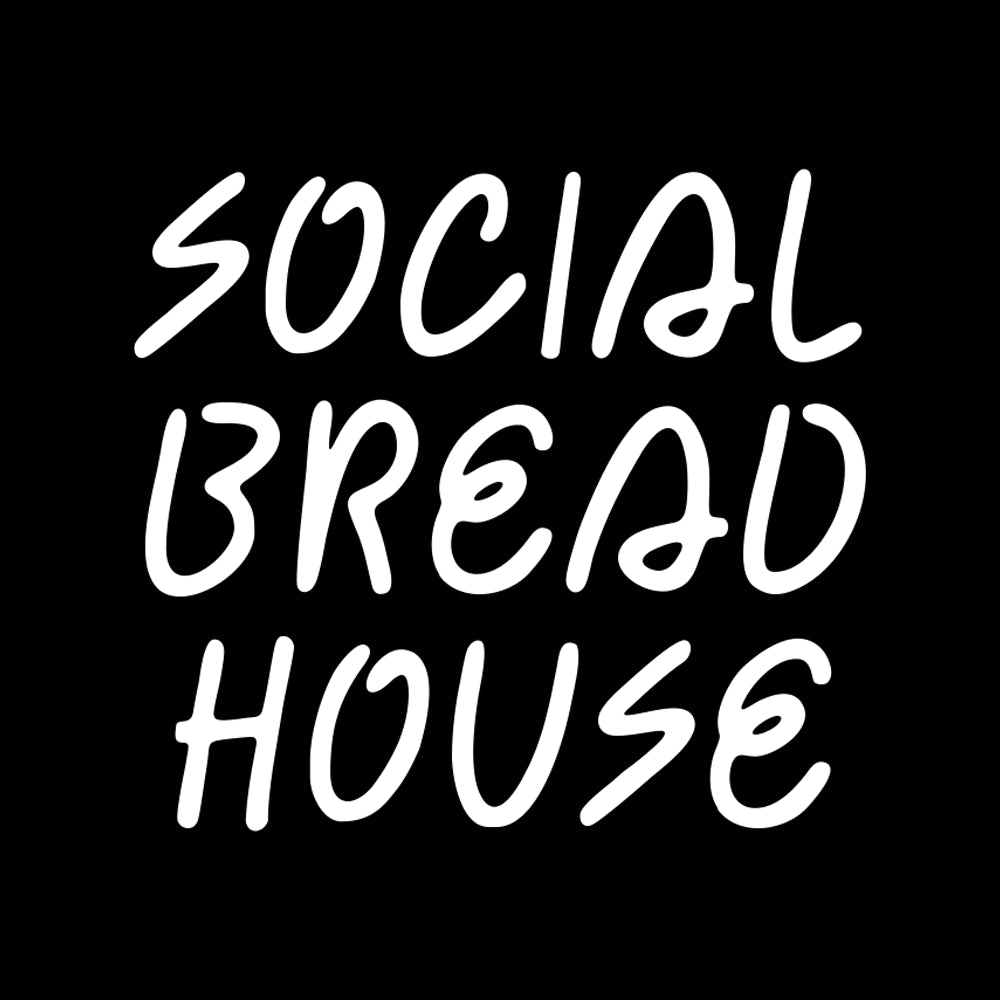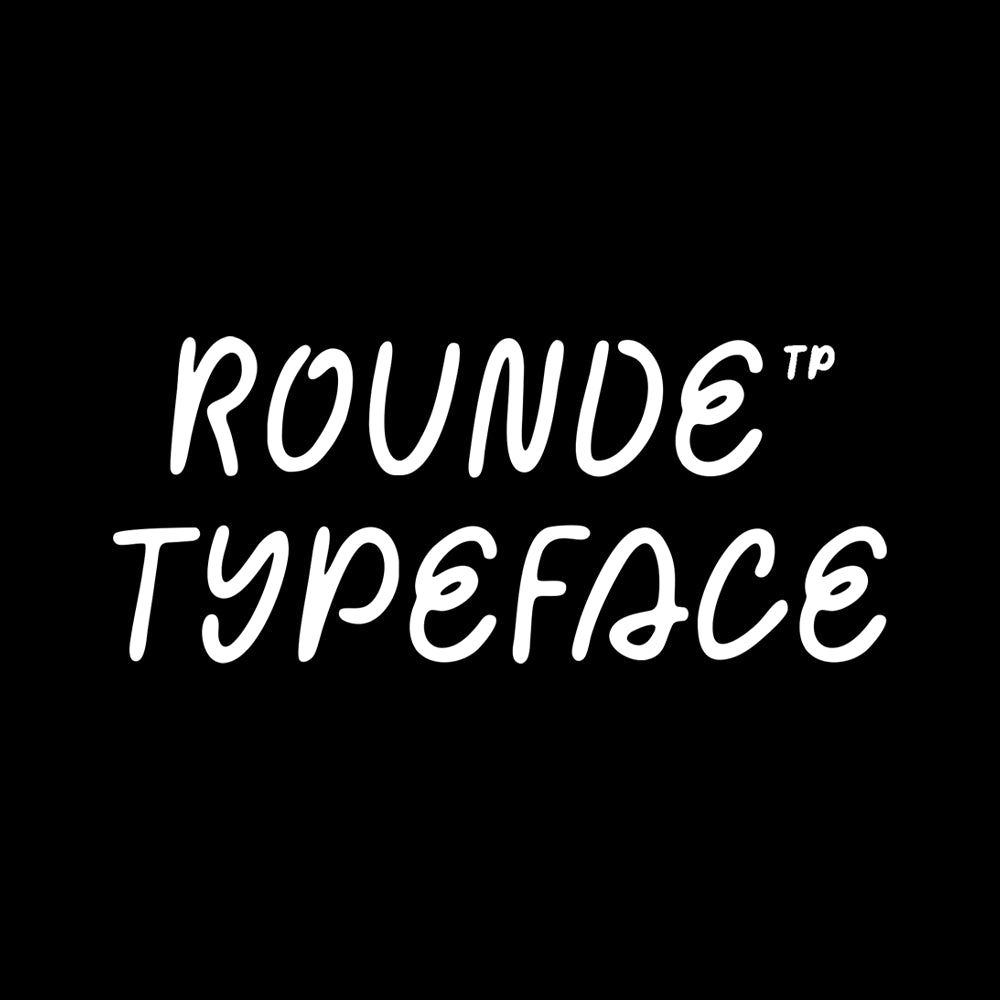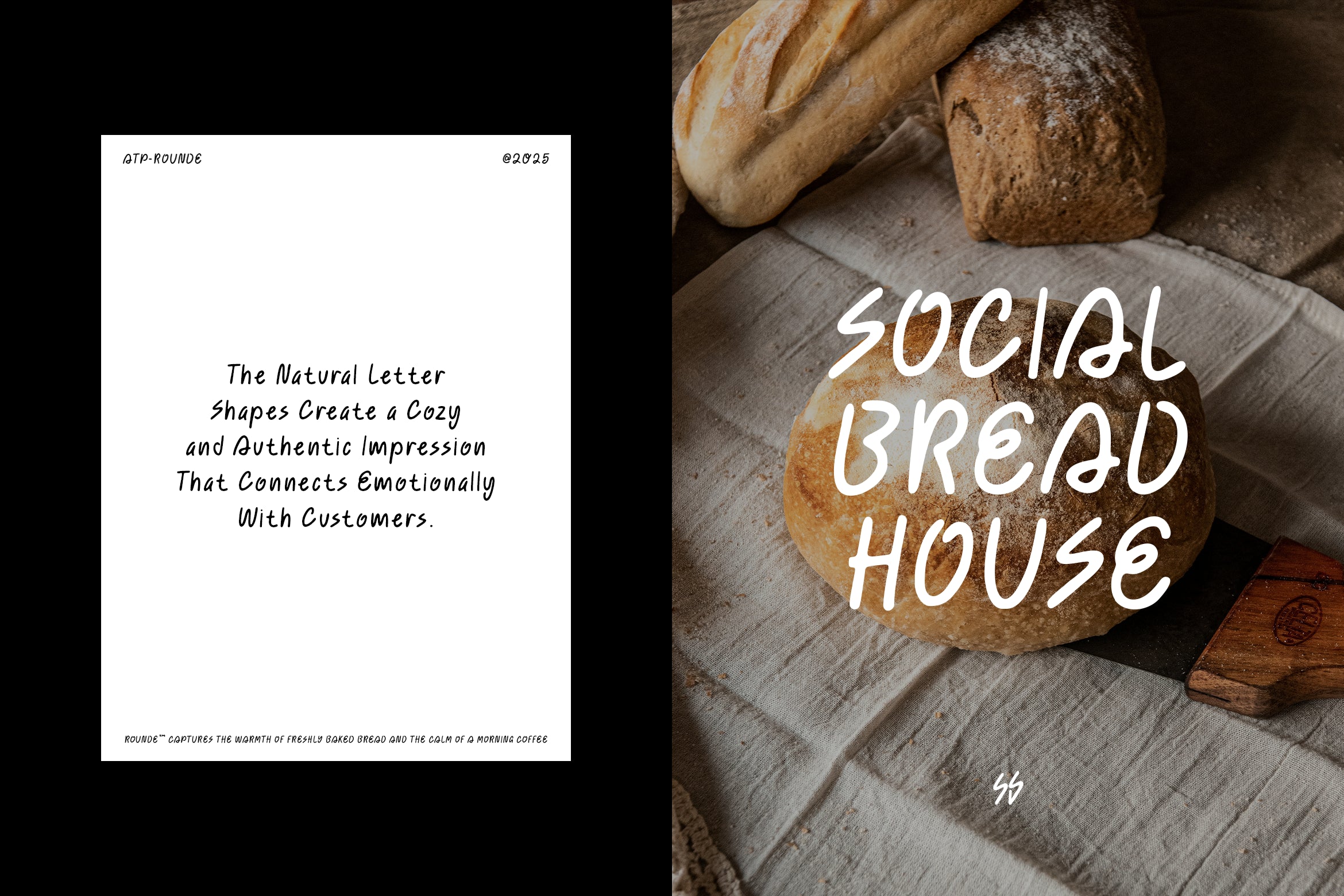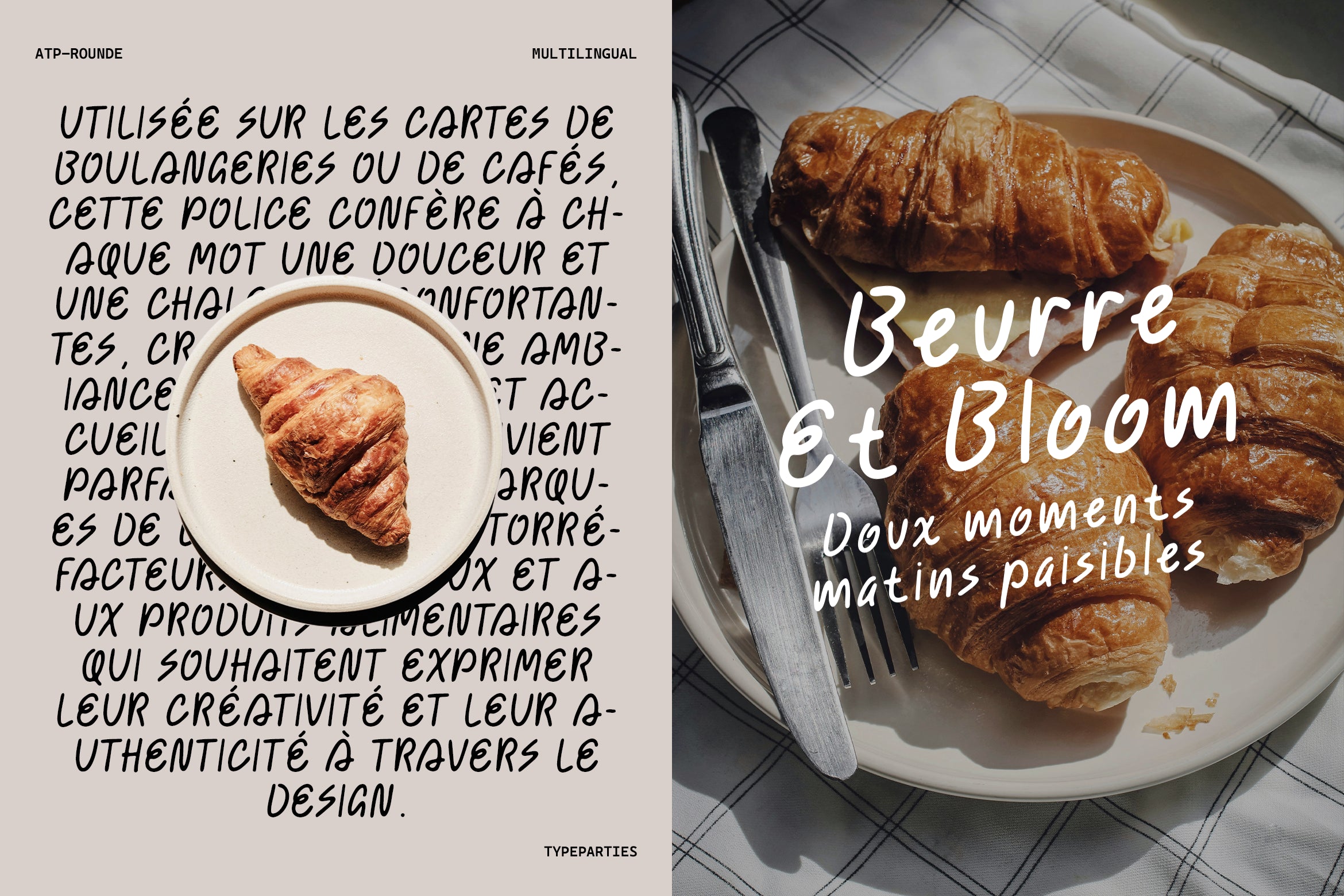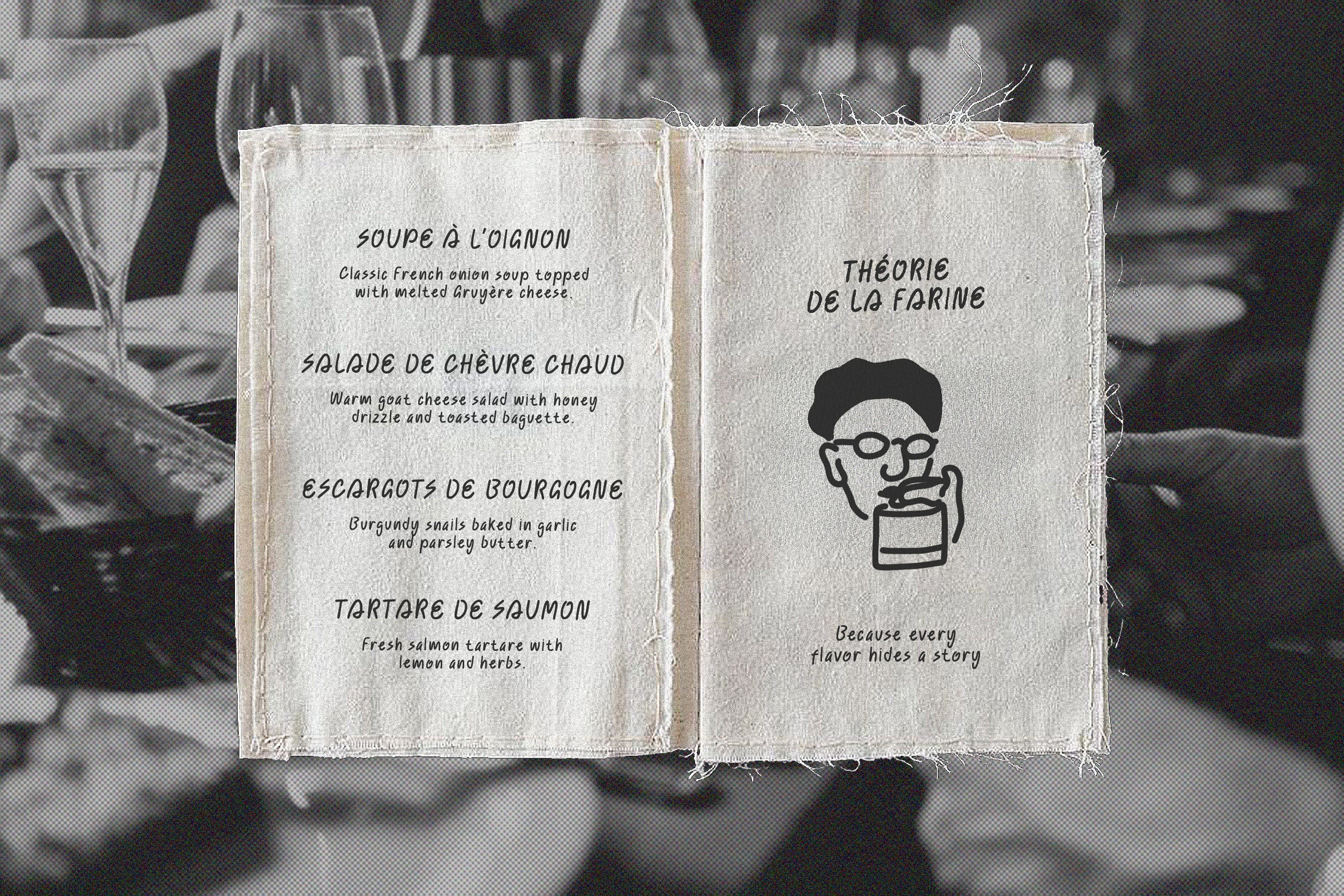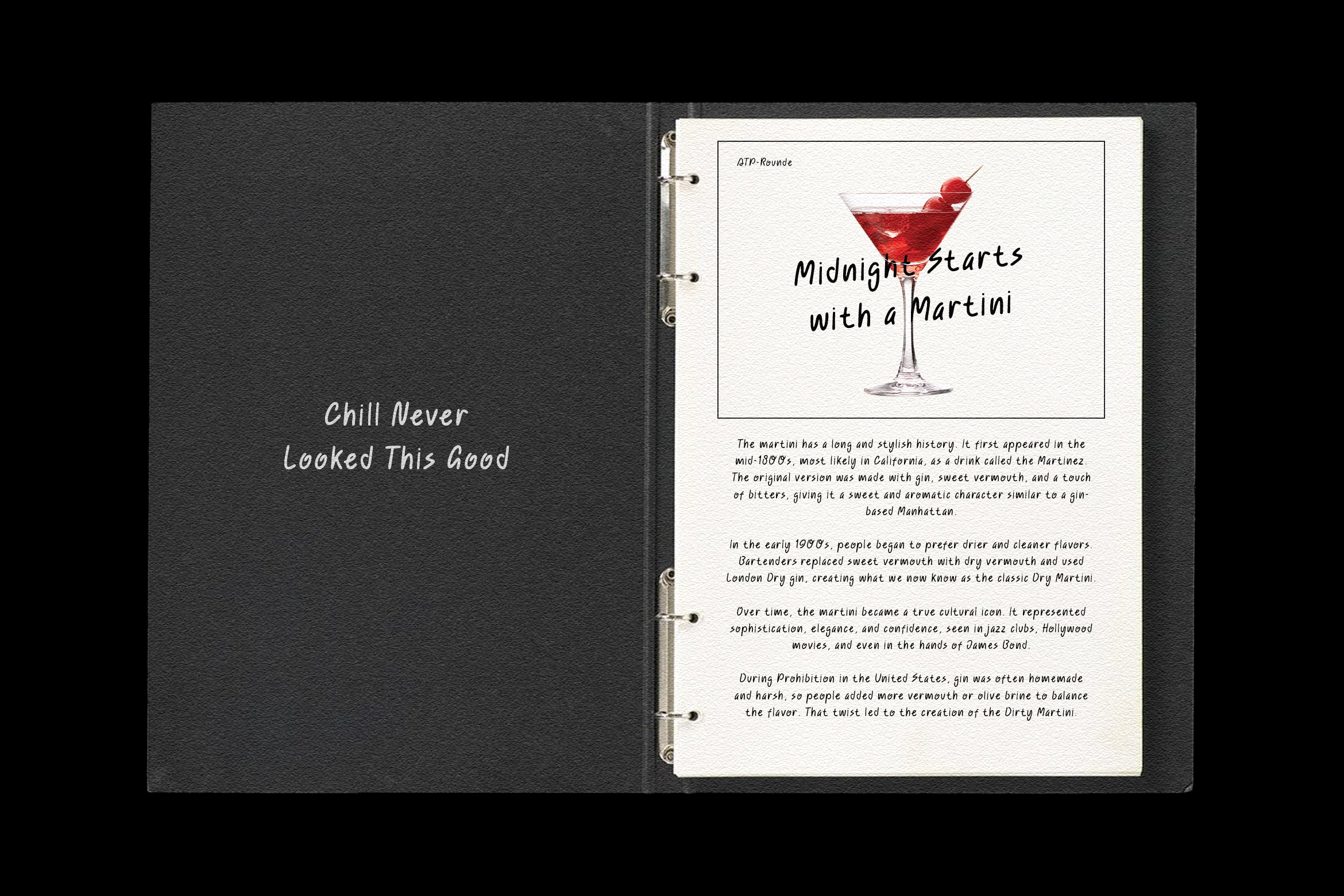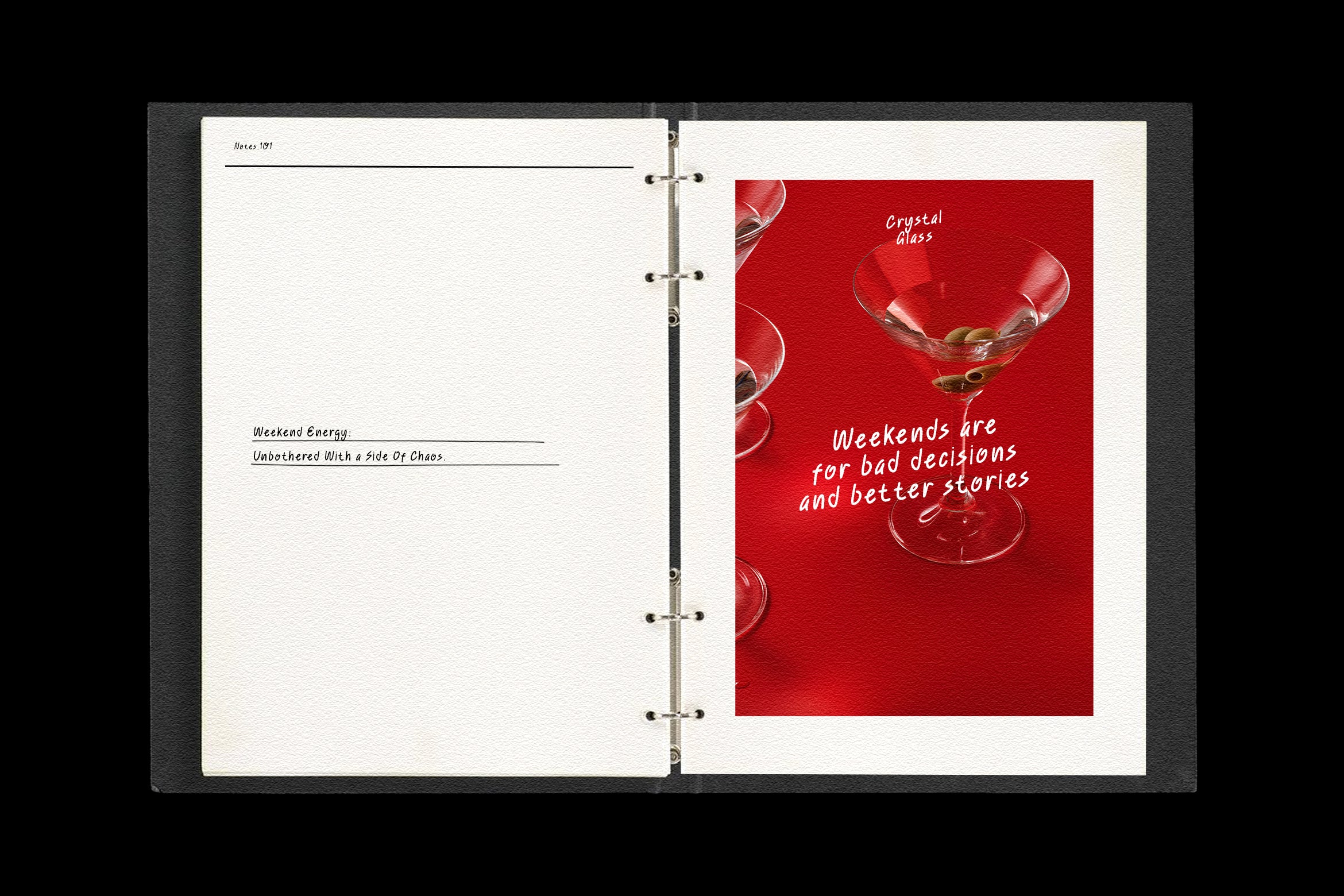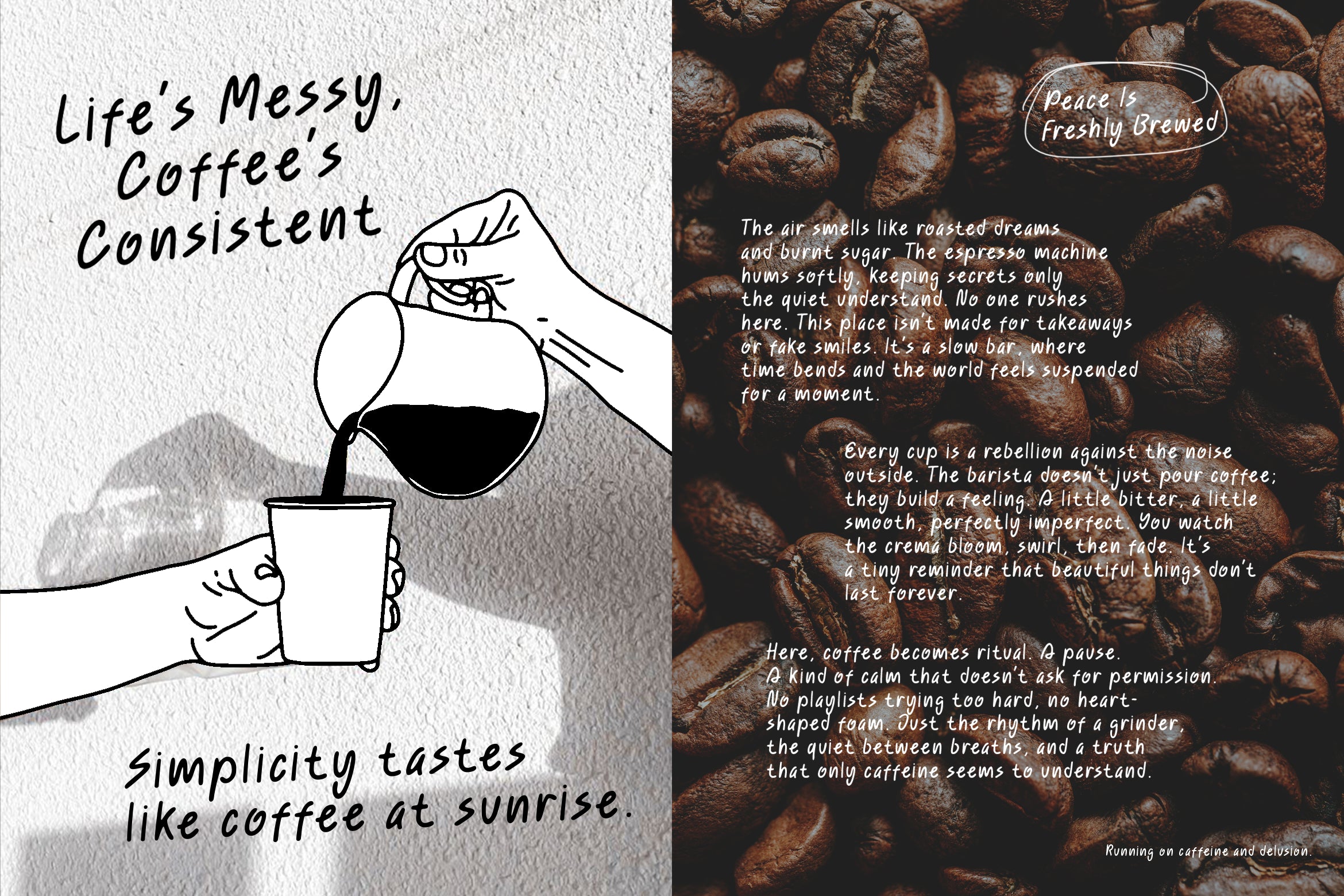
Rounde - Handwritten Rounded Font
Rounde is a smooth handwritten typeface with soft rounded edges that captures the cozy warmth of a morning coffee or freshly baked bread. Designed for cafés, bakeries, and handmade product packaging, this font blends organic charm with modern readability. Perfect for menus, signage, and social media branding that need a personal and inviting touch.
Rounde is a smooth handwritten typeface featuring soft rounded edges, available in both .otf and .ttf formats. It includes uppercase and lowercase letters, numerics, punctuation, and supports multilingual characters.